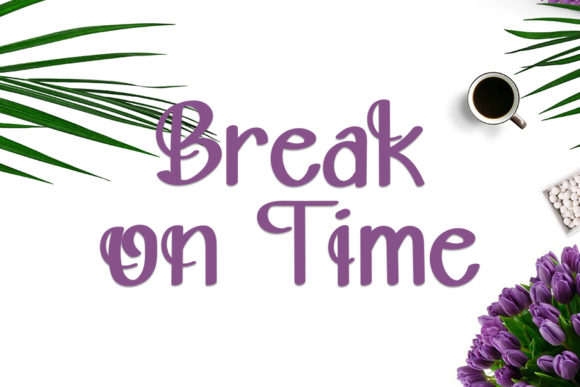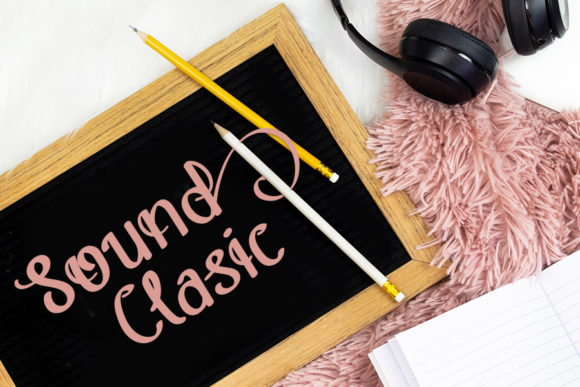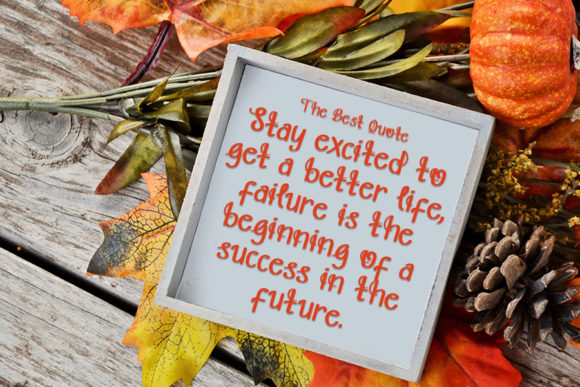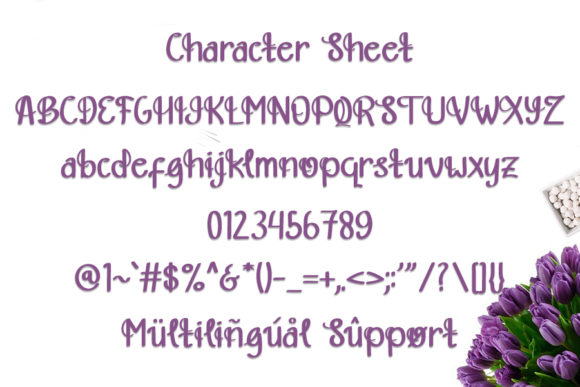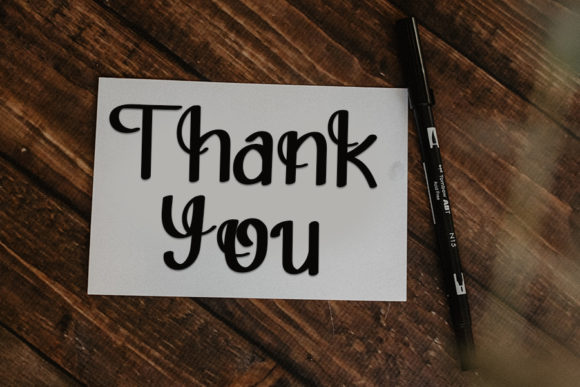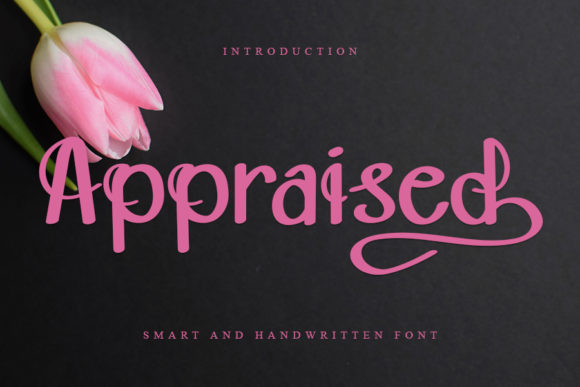
Introducing Appraised Font: Elevate Your Designs with a Cool, Trendy, and Neat Handwritten Style
In the world of design, fonts play a crucial role in conveying the message and aesthetic of a project. Whether you’re working on a branding campaign, crafting a social media post, or creating a digital product, the right font can make all the difference. If you’re on the hunt for a font that is both simple and visually striking, look no further than Appraised Font. This cool, trendy, and neat handwritten font is designed to instantly elevate your creations and set them apart from the rest.
The Charm of Appraised Font
Appraised Font boasts a unique charm that is hard to resist. Its handwritten style gives off a friendly and approachable vibe, making it perfect for designs that aim to connect with the audience on a personal level. The simplicity of this font is one of its strongest assets; it doesn’t overwhelm the viewer, allowing the message to take center stage while still adding a touch of personality.
Key Features of Appraised Font
- Cool and Trendy: Appraised Font is at the forefront of current design trends. Its stylish and modern look ensures that your designs feel contemporary and relevant.
- Neat and Readable: Despite its trendy appearance, Appraised Font remains clear and easy to read. This makes it versatile for use in various projects, from headings to body text.
- Strong Visual Effect: The font’s design ensures that it grabs attention without being overbearing. This balance is crucial for creating visually appealing designs that engage the audience.
- Simple yet Impactful: The simplicity of Appraised Font is its greatest strength. It allows for a wide range of applications, from minimalist designs to more complex compositions.
Applications of Appraised Font
The versatility of Appraised Font makes it suitable for a myriad of design projects. Here are some ways you can incorporate this font into your work:
- Branding and Logotypes: Create memorable brand identities with Appraised Font. Its unique style can help your brand stand out and convey a sense of approachability.
- Digital and Print Media: Whether you’re designing a website, social media graphics, or print materials like brochures and posters, Appraised Font can add a touch of elegance and personality.
- Packaging Design: Make your product packaging more appealing with Appraised Font. Its neat and trendy appearance can enhance the overall look and feel of your product.
- Stationery and Invitations: Add a personal touch to your stationery, invitations, or greeting cards with the warm and inviting style of Appraised Font.
Tips for Using Appraised Font Effectively
To get the most out of Appraised Font, consider the following tips:
- Mix and Match: Don’t be afraid to combine Appraised Font with other fonts. A bold font for headings and Appraised Font for body text can create a striking contrast.
- Play with Sizes: Experiment with different font sizes to add hierarchy and emphasis to your design.
- Adjust Line Spacing: Ensure readability by adjusting the line spacing according to your design’s needs.
- Color Matters: Choose colors that complement the vibe of Appraised Font. Pastels, neutrals, and bold colors can all work well depending on the context.
Appraised Font is more than just a cool, trendy, and neat handwritten font; it’s a tool that can transform your designs and make them more engaging. Its simplicity, readability, and strong visual effect make it an excellent choice for a wide range of projects. Whether you’re a professional designer or a crafter, Appraised Font offers the versatility and charm needed to elevate your creations. So, why settle for ordinary when you can make your designs stand out with Appraised Font?
Embrace the potential of Appraised Font in your next project and experience the difference it can make. With its unique blend of style and functionality, this font is sure to become a staple in your design toolkit.